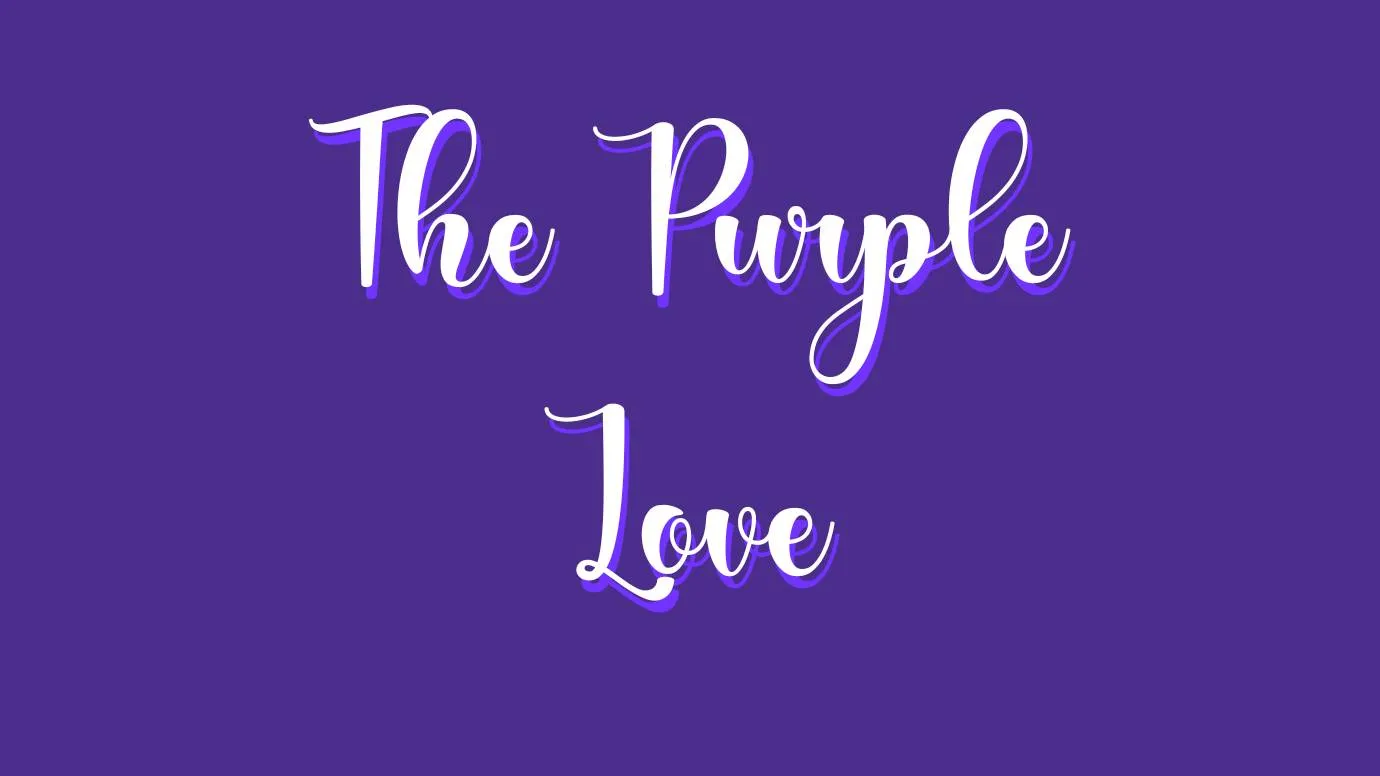
The Purple Love Font Family is a modern script font that is an elegant script typeface. The main designer of this stylish font is Fontkong which is a famous font foundry.
The Purple Love Font
NameThe Purple Love Font
Designerfontkong